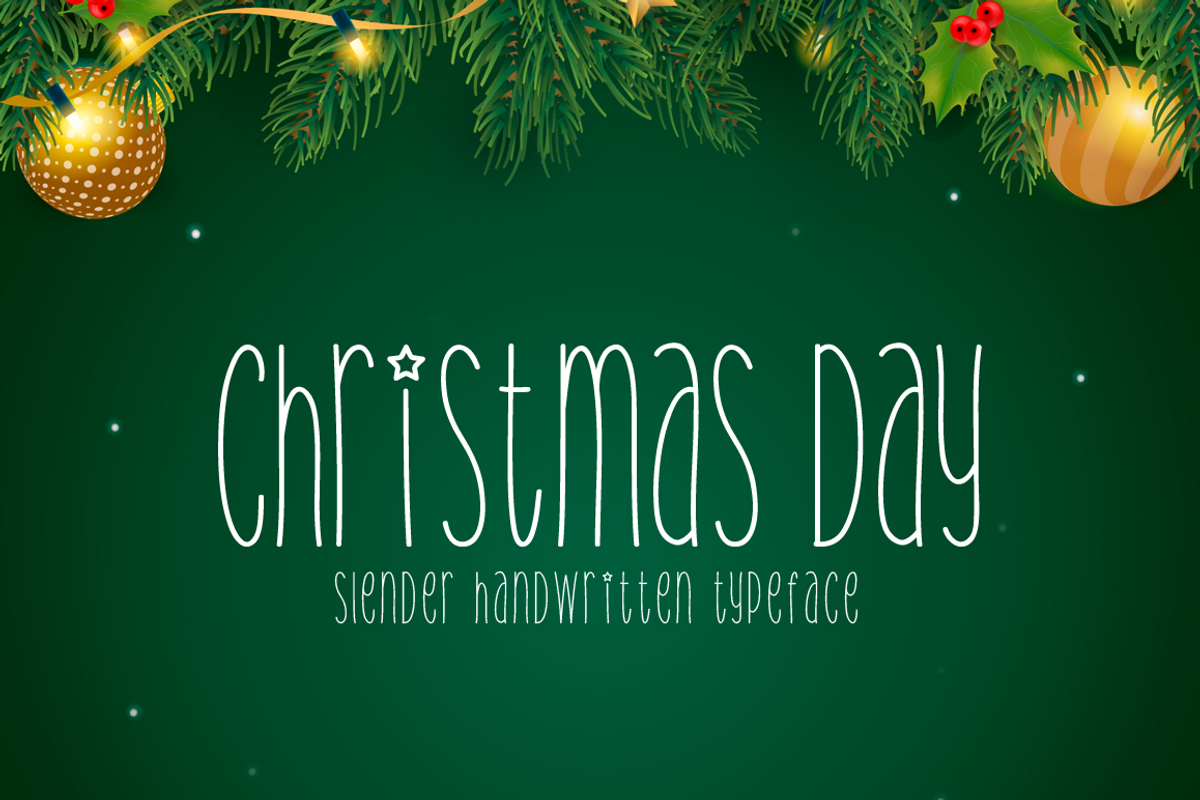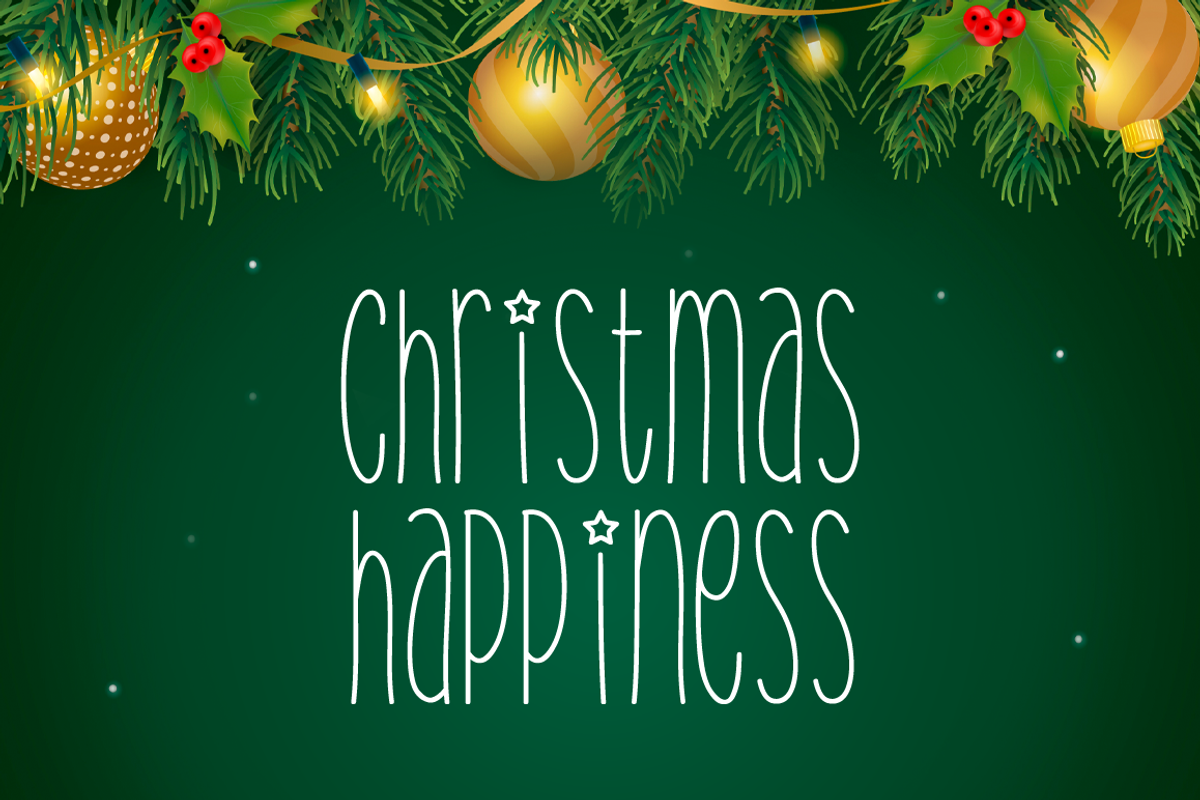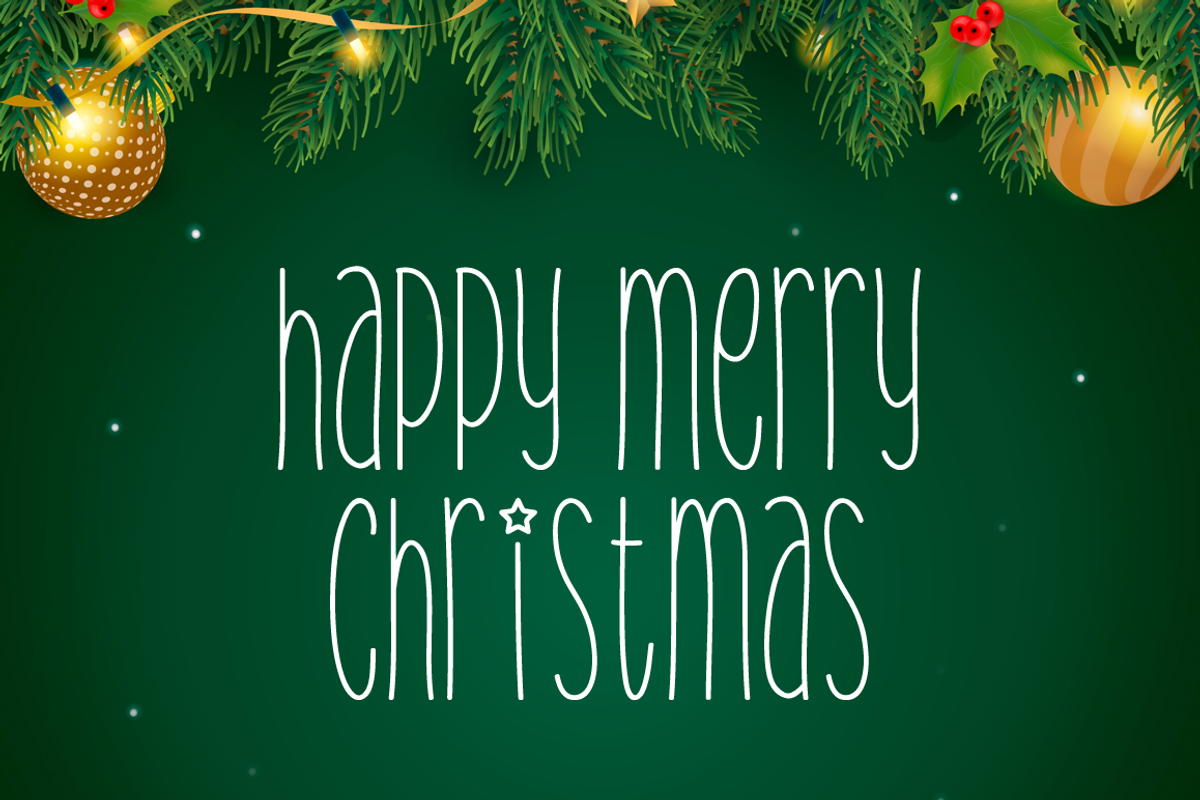
Christmas Day Typeface
Introducing Christmas Day!
Christmas Day is a brand new handwritten font. Christmas Day is perfectly suited for stationery, logos, t-shirt, paper, print design, website header, photo frame, flyer, music cover, poster, image slider, and much more.